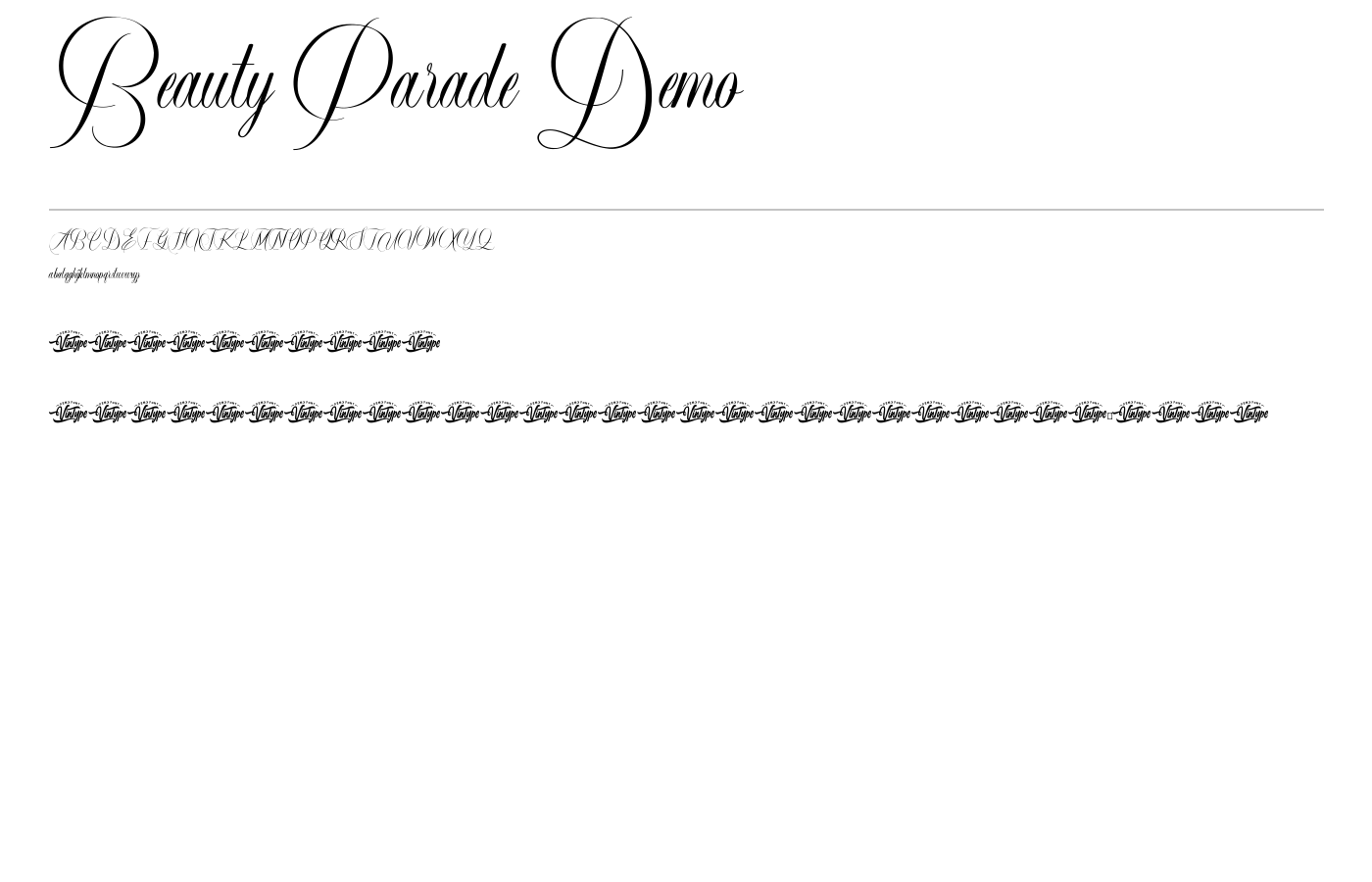
Beauty Parade Demo is an elegant, high-contrast script font featuring delicate, flowing strokes and refined swashes that give it a graceful, sophisticated appearance. Its slender letterforms and decorative flourishes make it ideal for luxury branding, wedding invitations, and upscale editorial designs where a touch of classic beauty and charm is desired. This font shines best in large display settings, adding a timeless, romantic feel to any project.
Beauty Parade Demo Font
About Beauty Parade Demo Font
| Font family | Beauty Parade Demo Font |
| Designer | Widiyanti & Sarah SP |